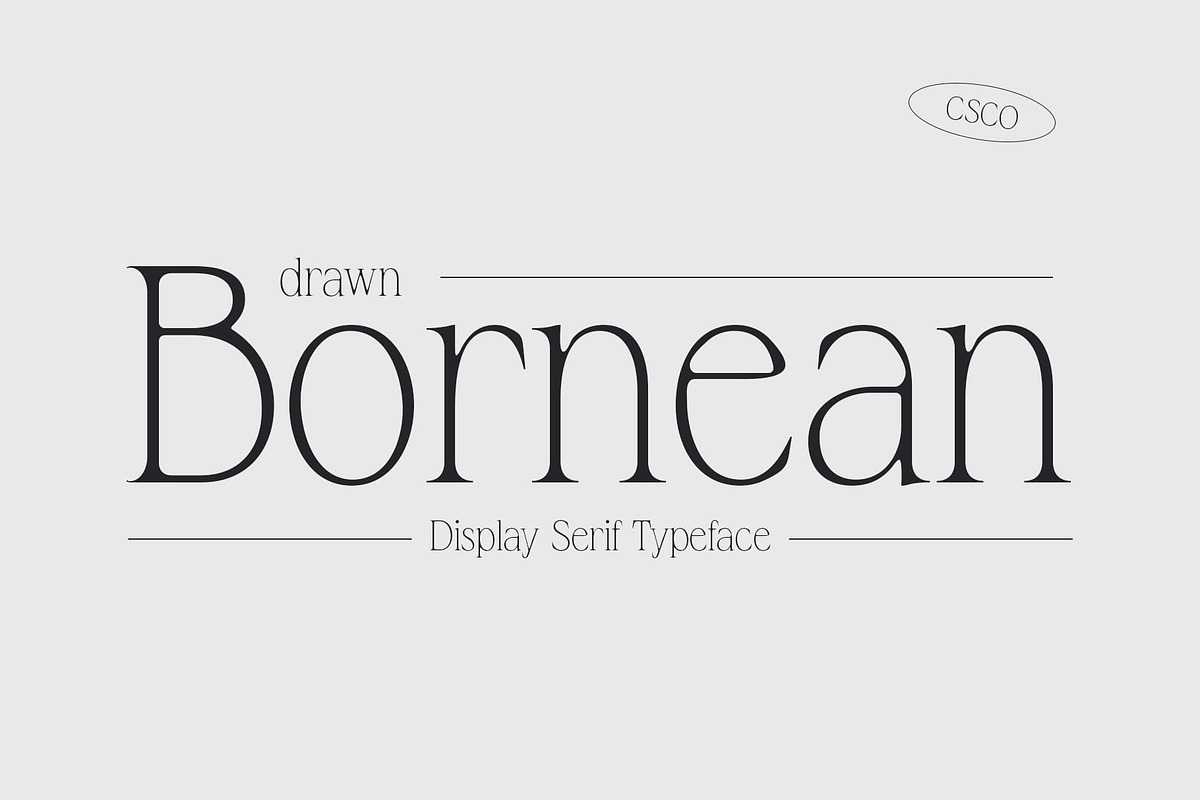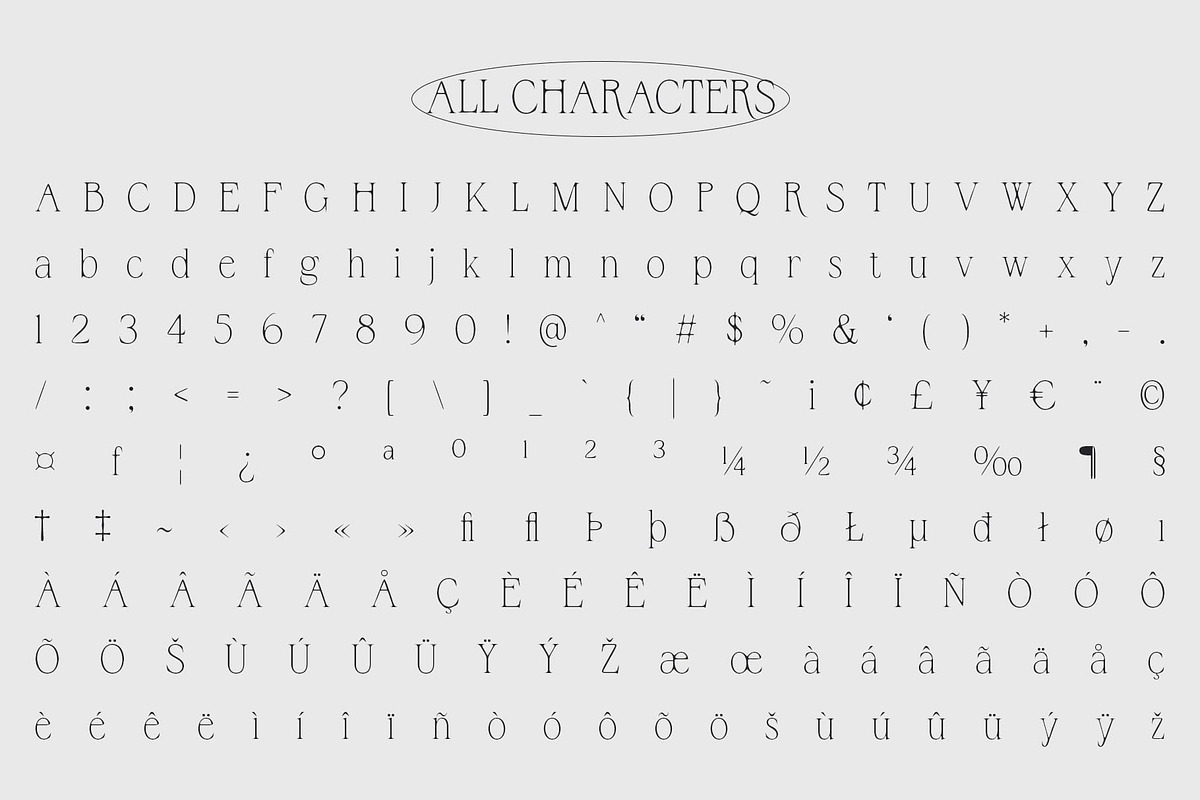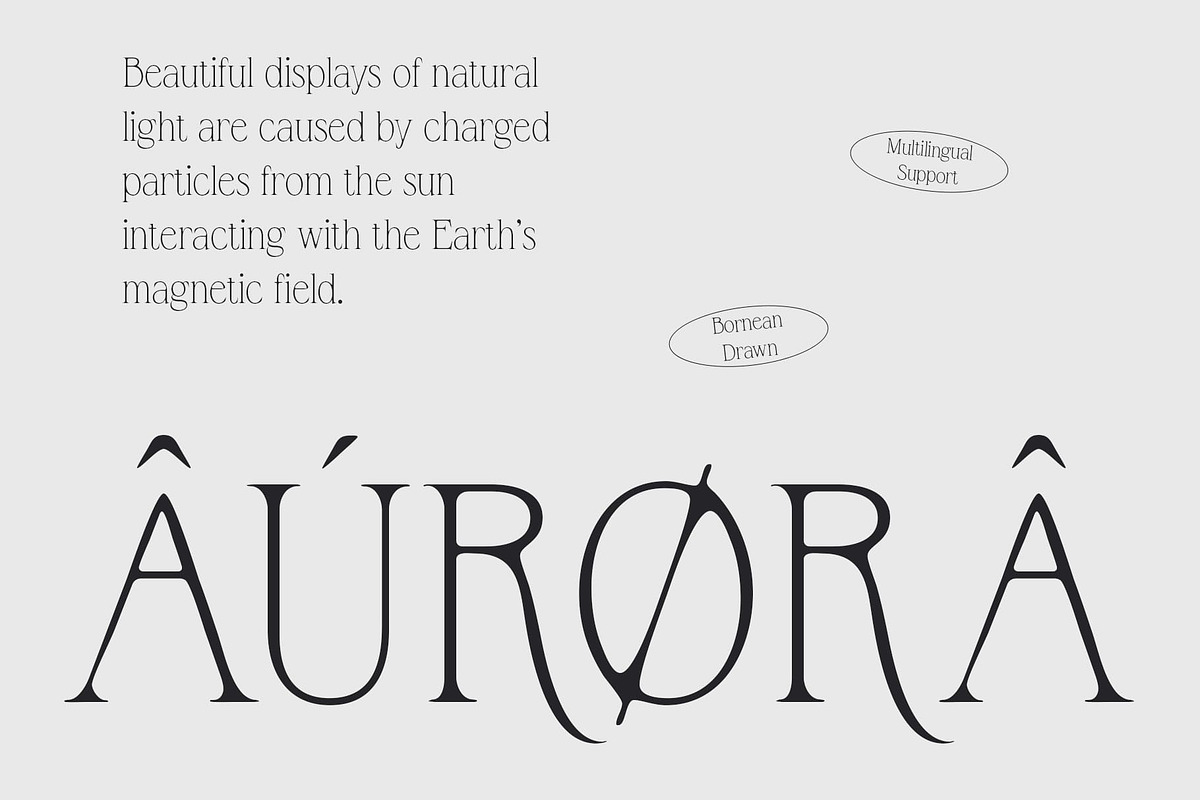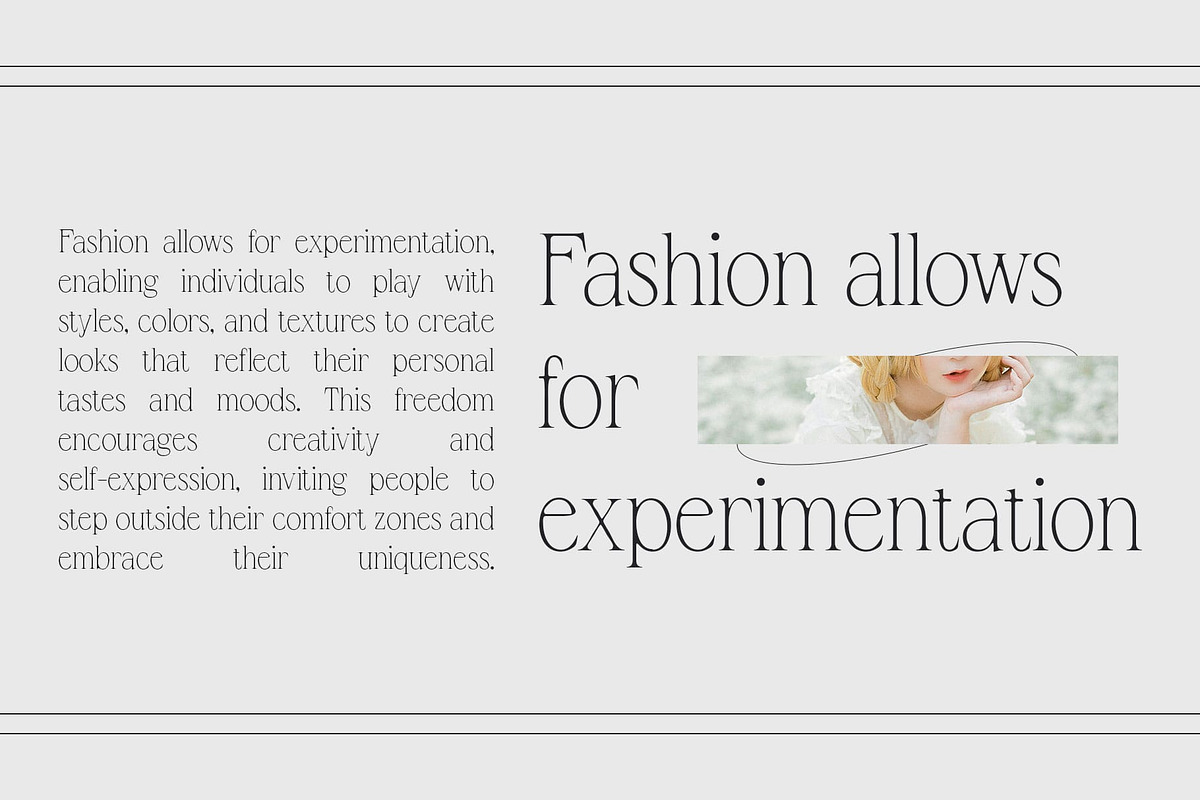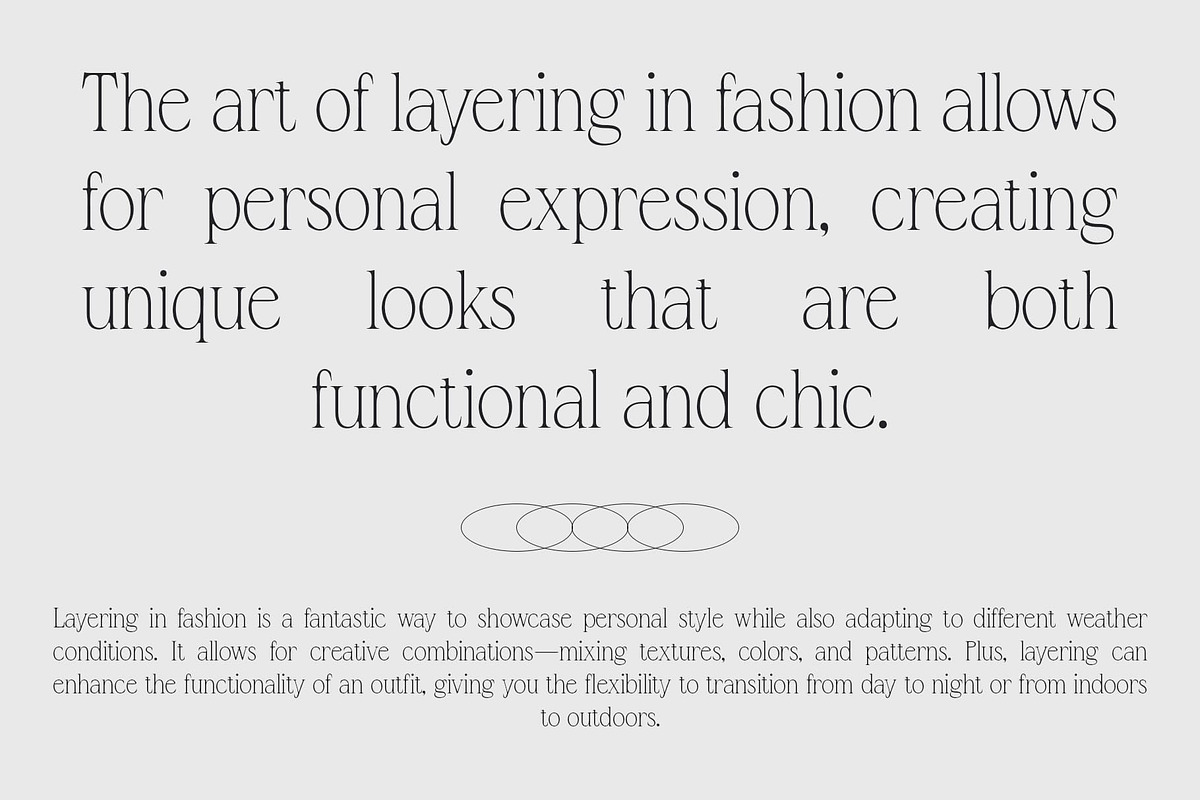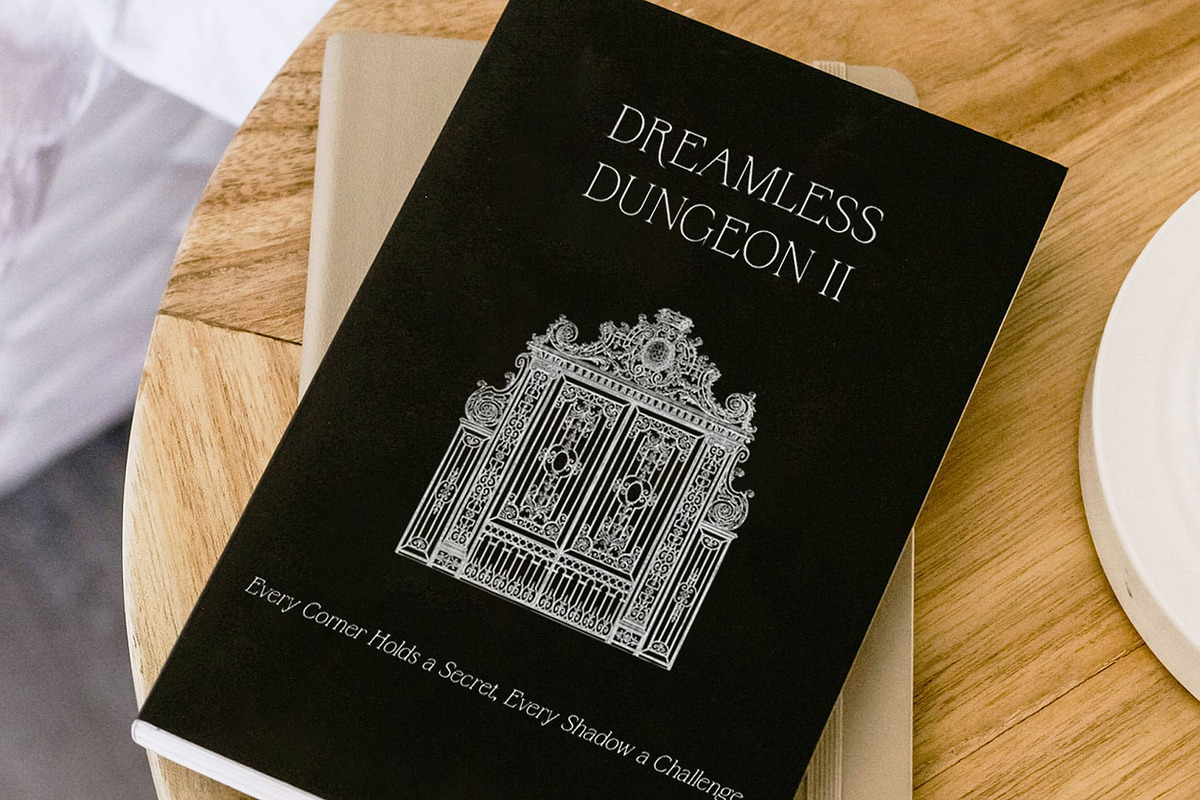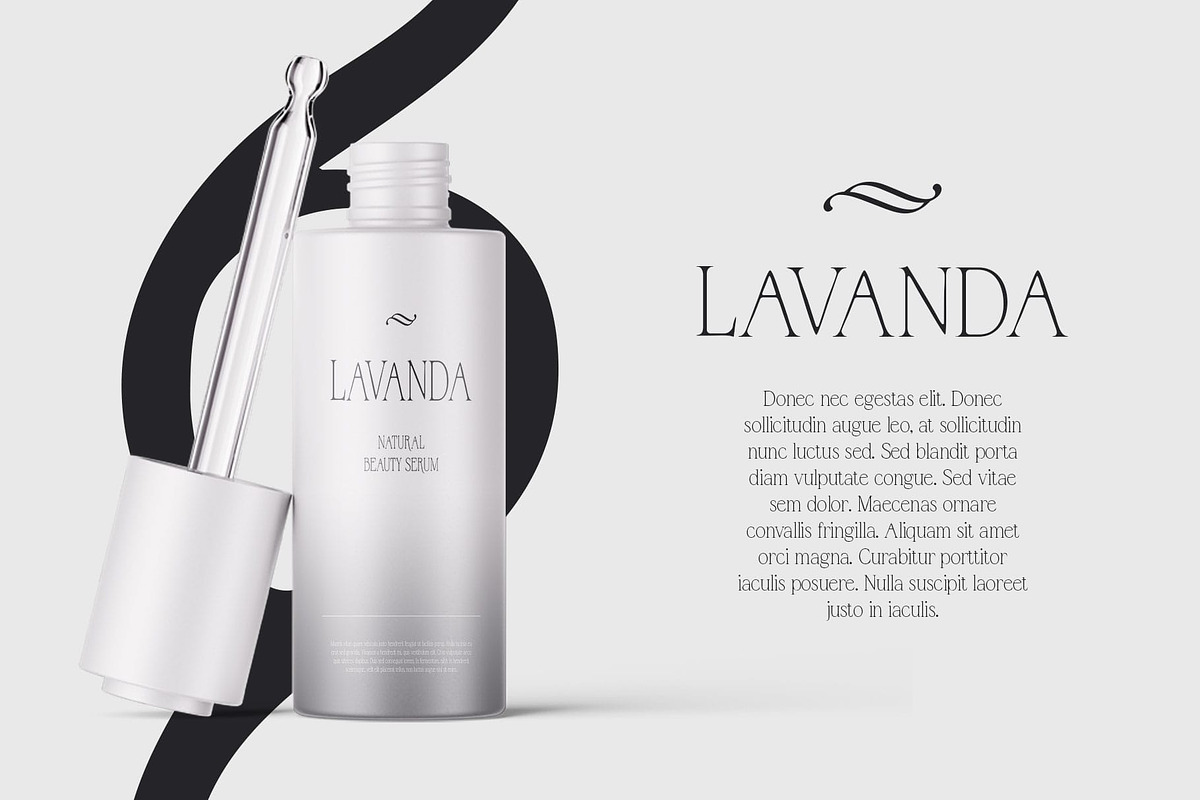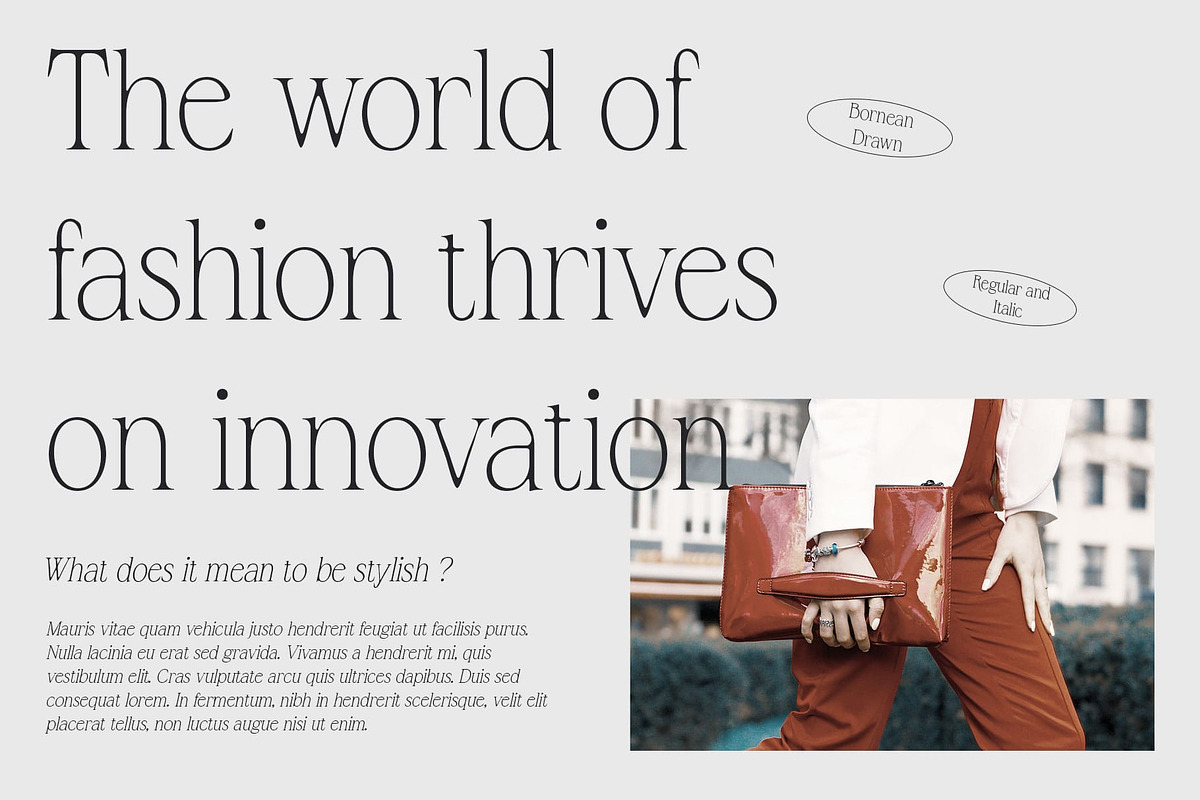
Bornean Drawn
Bornean Drawn Font: The Perfect Fusion of Elegance and Artistry
Modern Serif with a Handcrafted Touch Bornean Drawn is a modern serif font that embodies a minimalist design, exuding elegance and sophistication. Its clean lines and refined shapes create a polished look, while the subtle hand-drawn effect adds a unique artisanal touch. This blend of contemporary style and personal flair makes Bornean Drawn an exceptional choice for a variety of design applications.
Minimalist Design for Timeless Appeal With its minimalist design, Bornean Drawn captures a timeless appeal that resonates across different design aesthetics. The font’s clean lines contribute to its modern look, making it versatile for various applications, from upscale branding to elegant invitations. This characteristic ensures that the font remains relevant and visually appealing, regardless of design trends, making it a staple for any designer’s toolkit.
Subtle Hand-Drawn Effect for Unique Character What truly sets Bornean Drawn apart is its subtle hand-drawn effect, which infuses the font with a sense of character and warmth. This artisanal quality softens the sharpness often found in modern serifs, creating a friendly and inviting atmosphere. It allows the font to stand out in a sea of typefaces, giving it a distinct personality that enhances the overall aesthetic of any project.